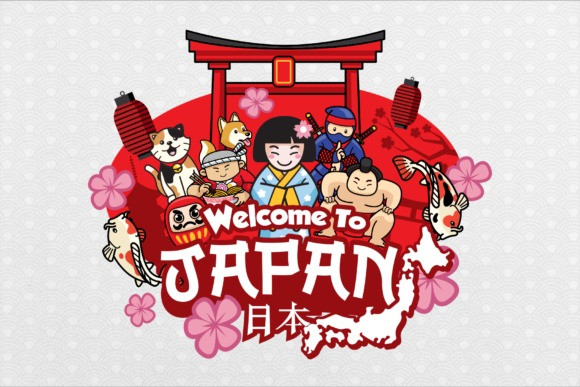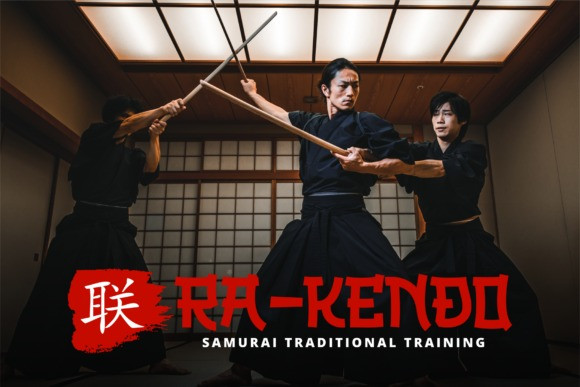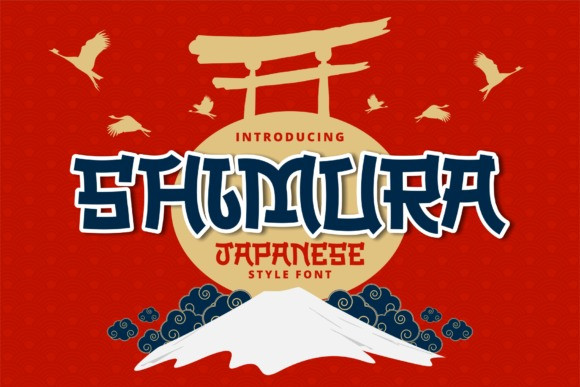
Shimura Font
Shimura Font an interesting and unique display font.Fall in love with its incredibly stylish look and use it for logos, quotes, invitations, business cards, power point presentations, and more!